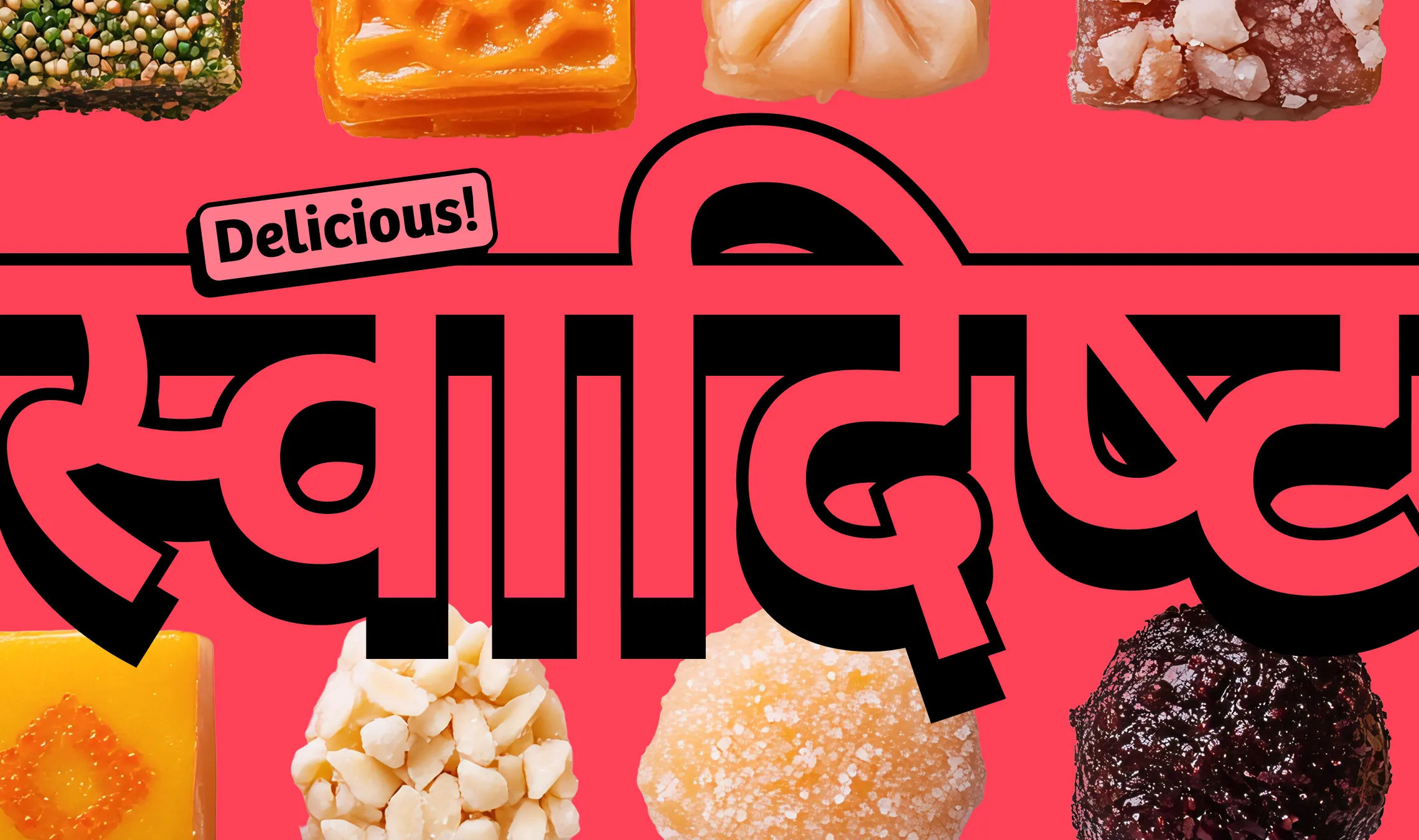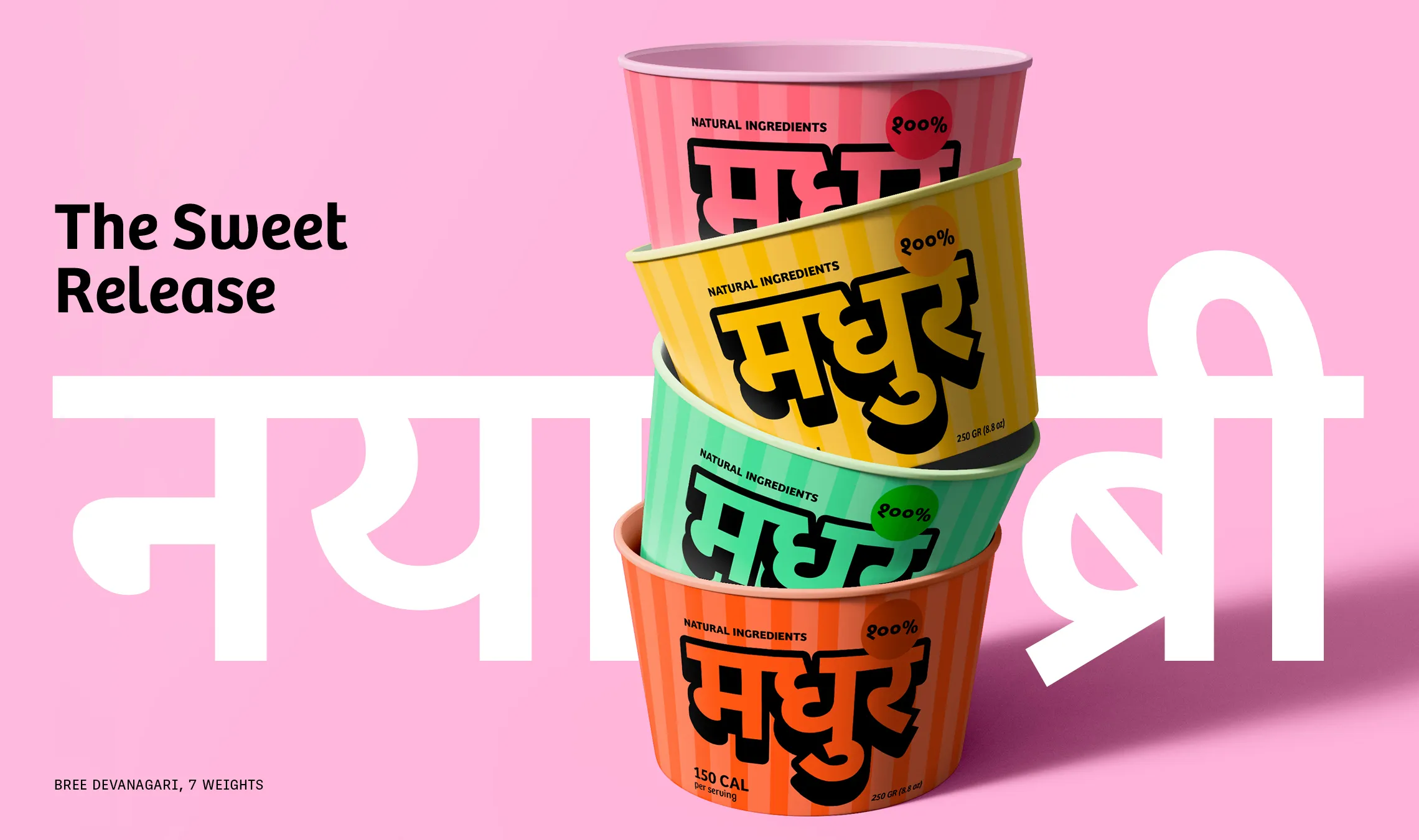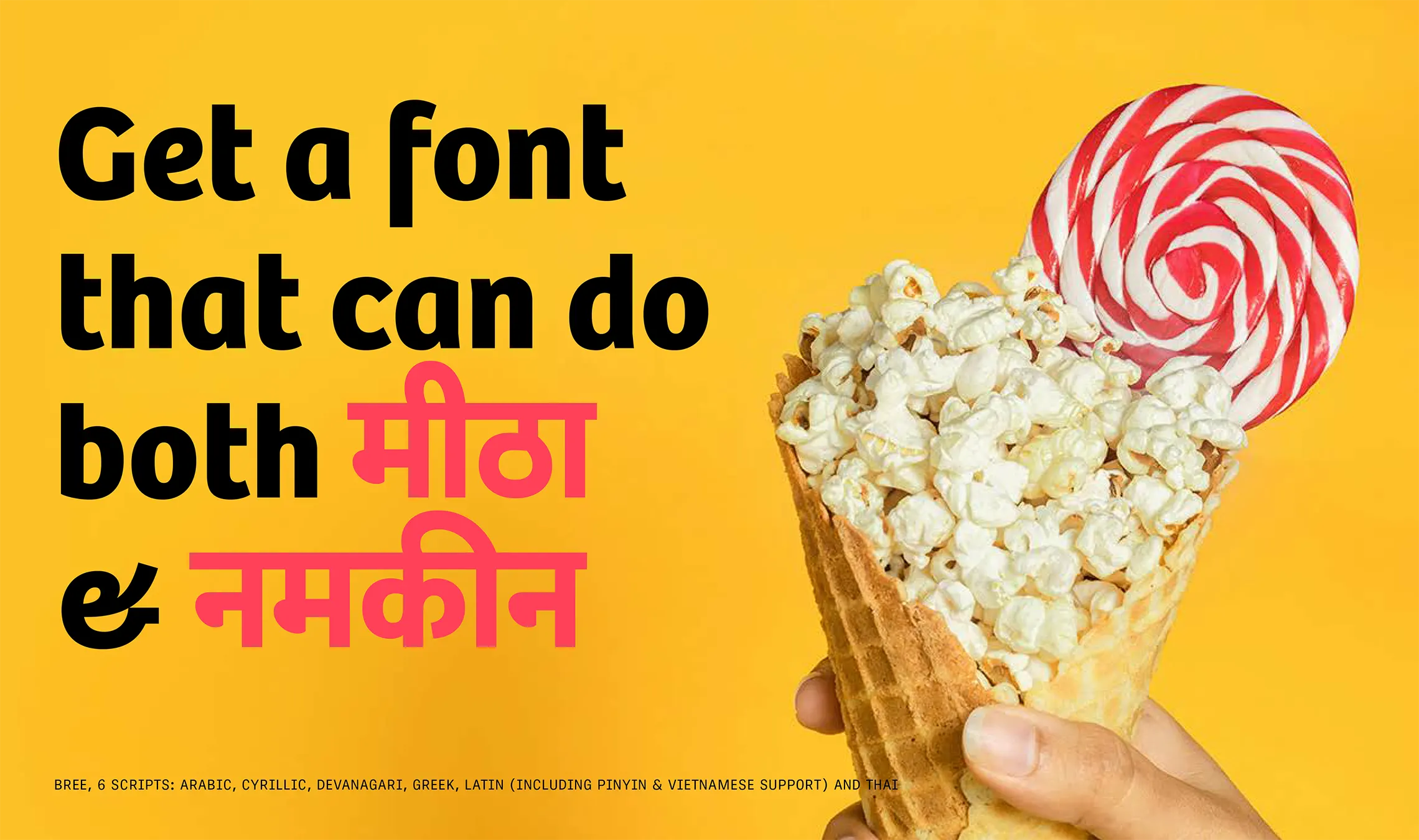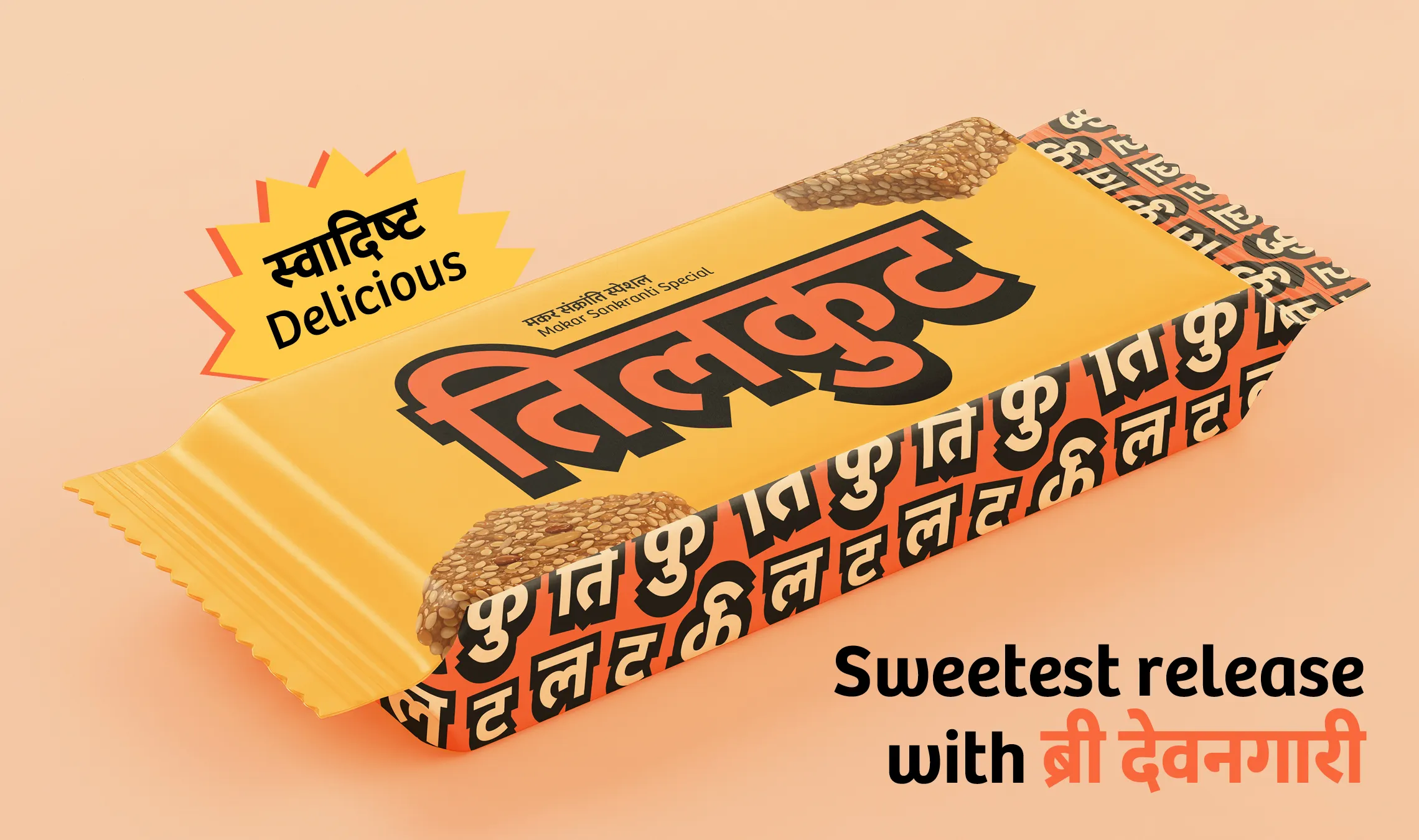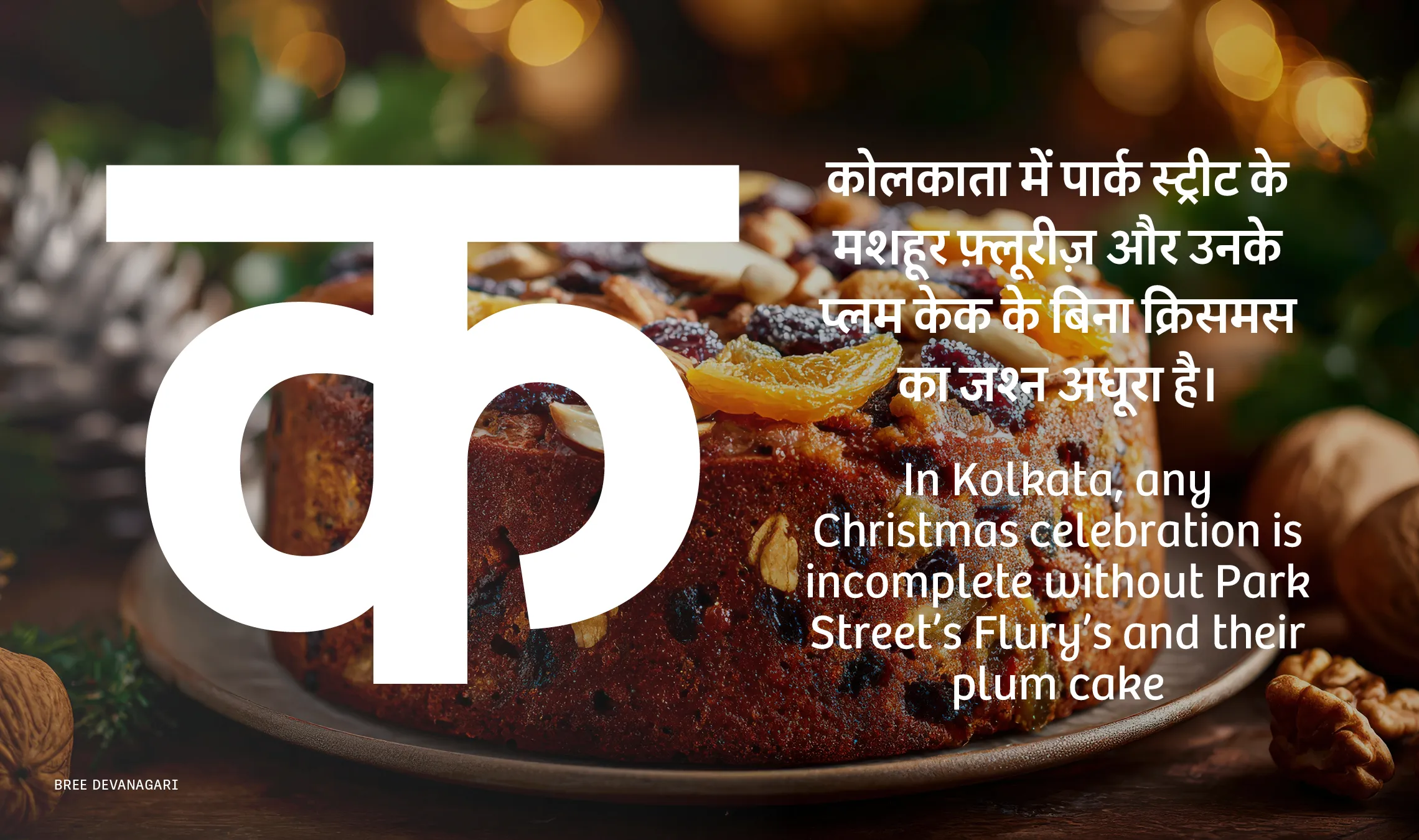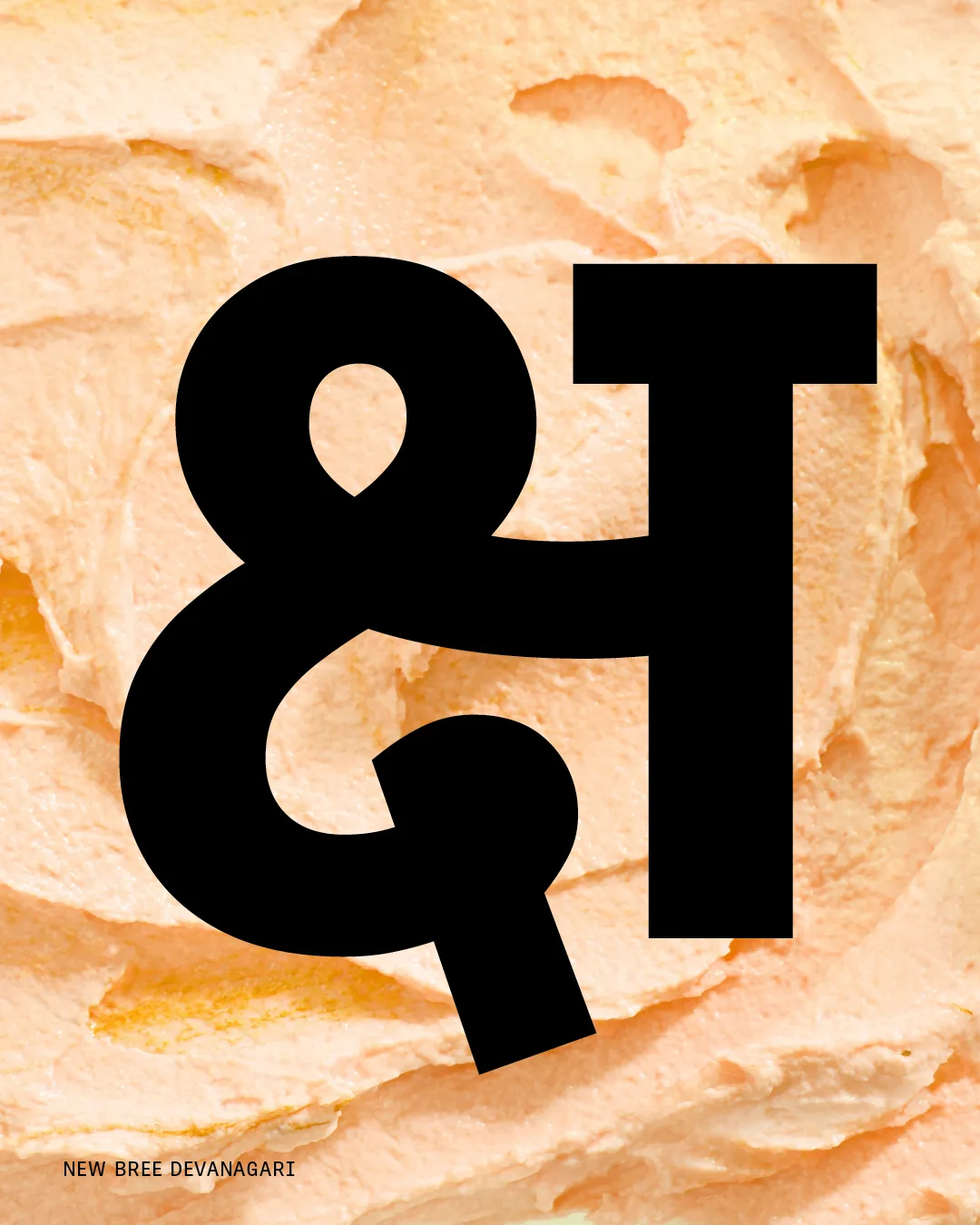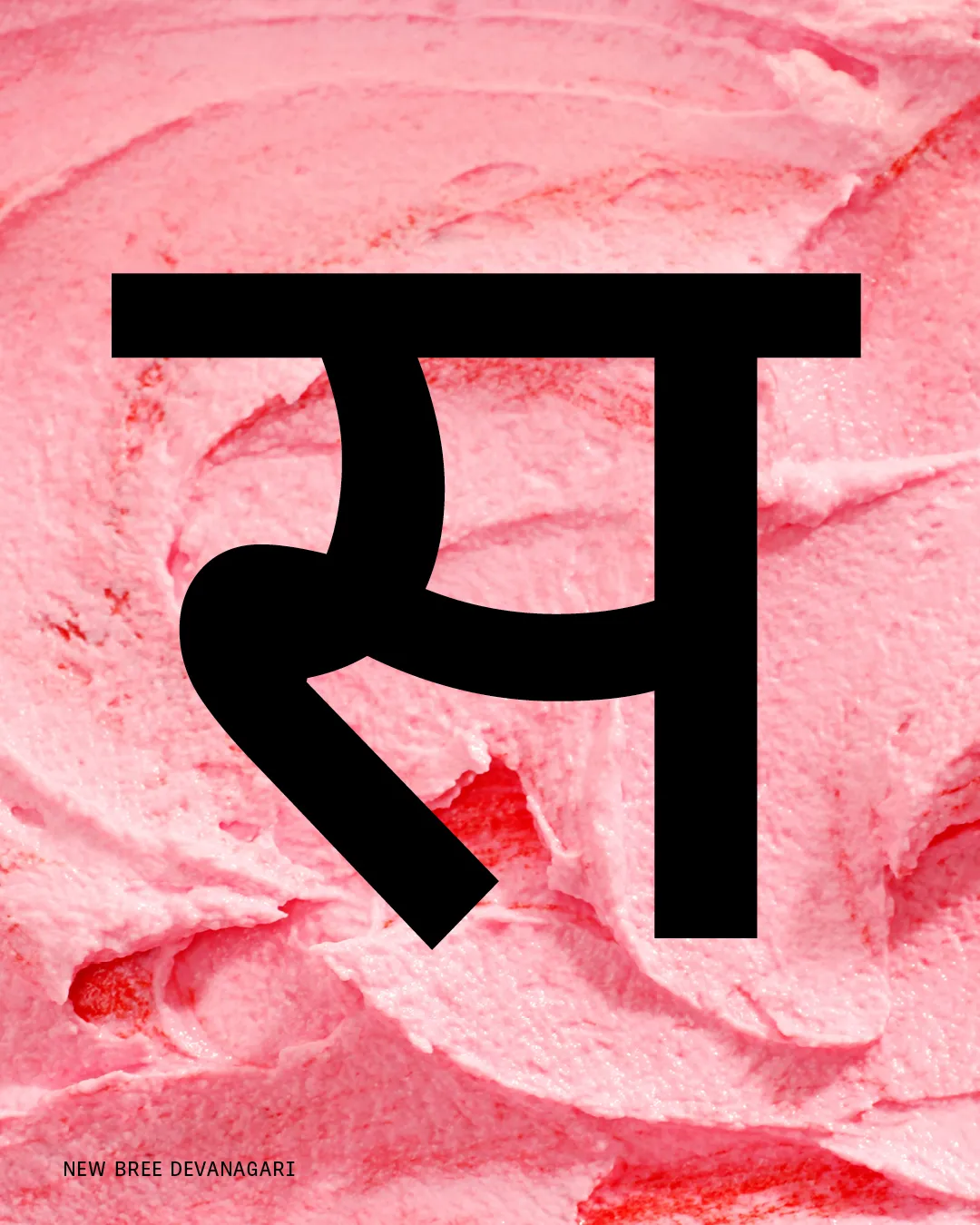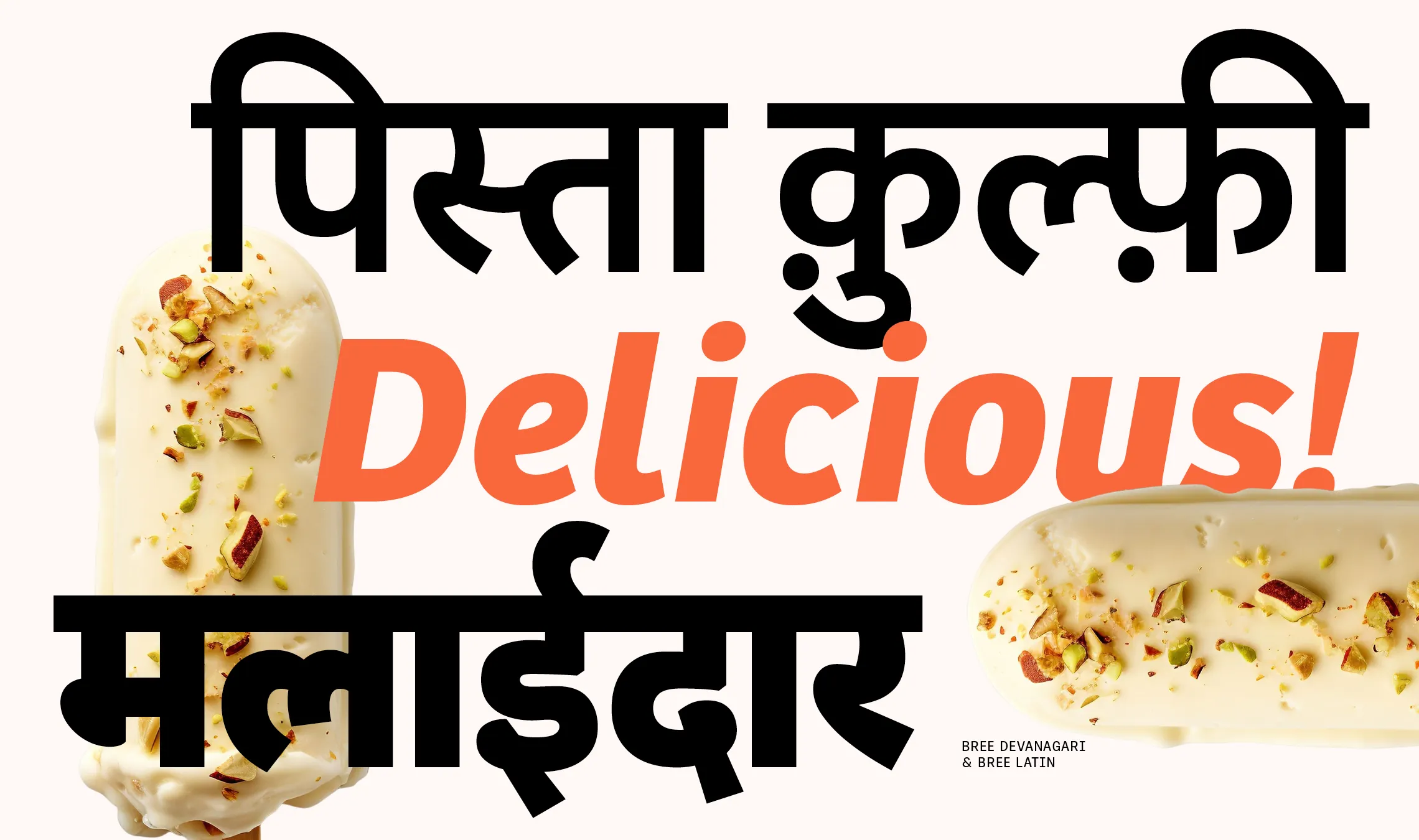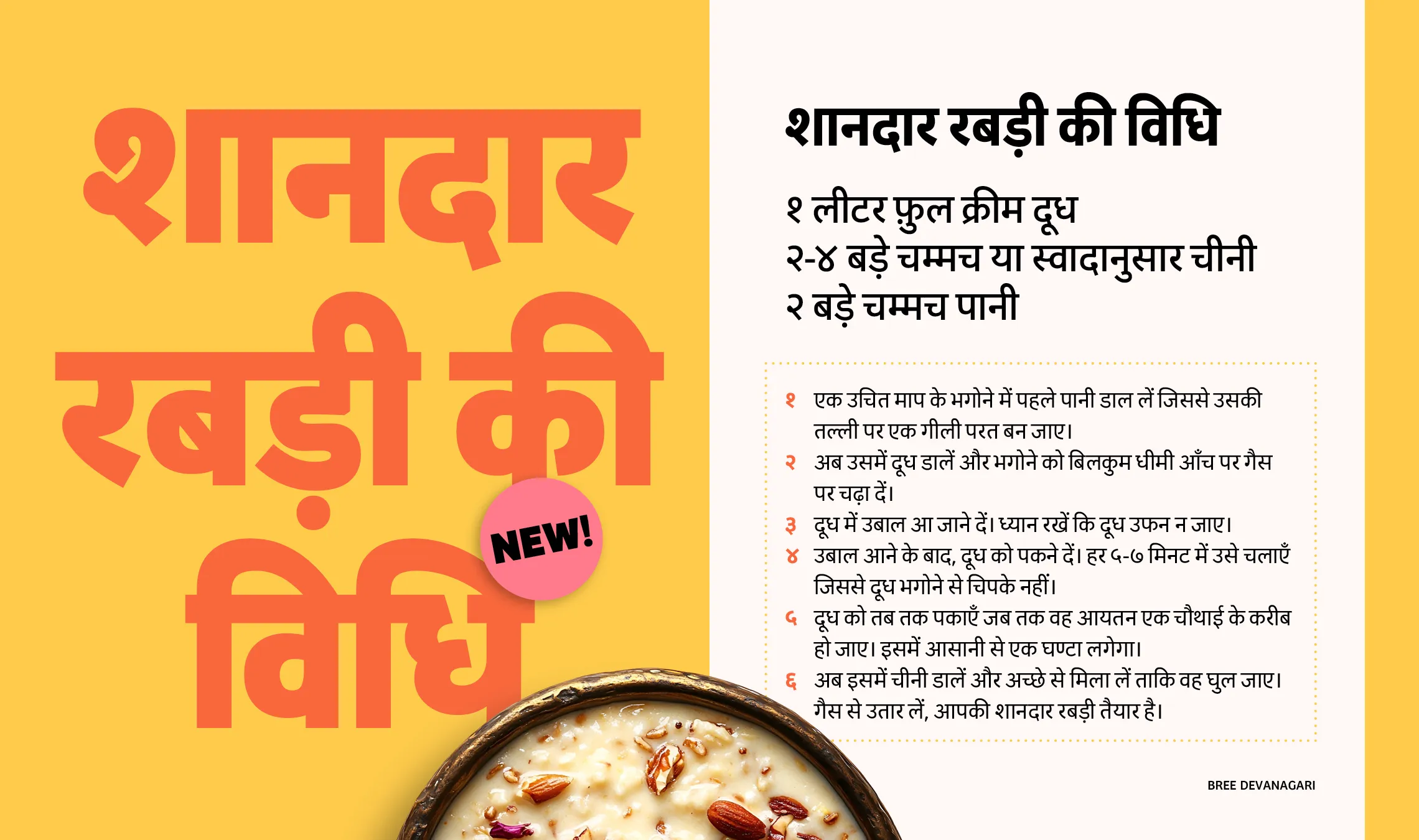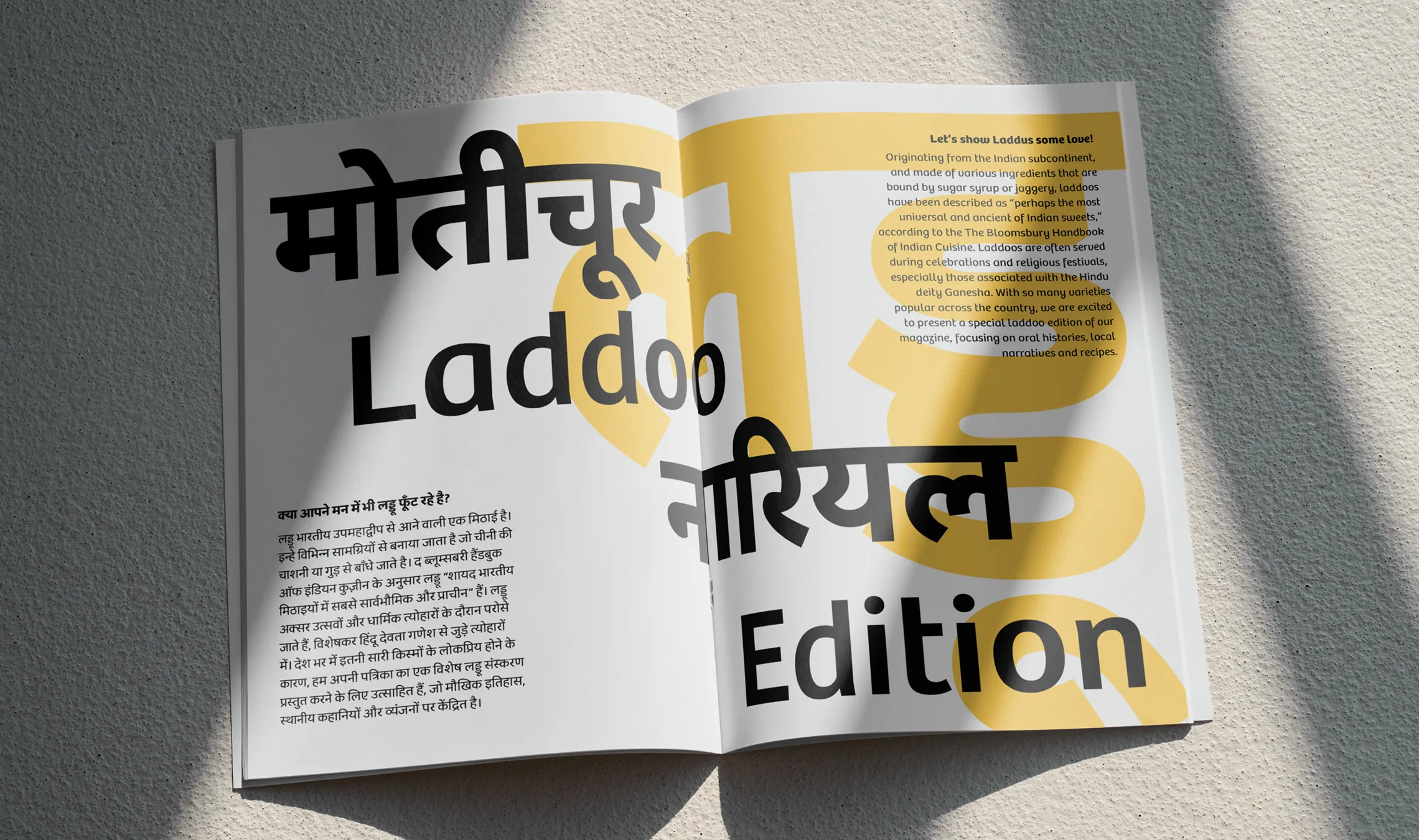
रसीले fonts, रसीली life!
Bree is one of our most popular – and friendly – type families. Now Bree is available in Devanagari, with an exuberant tone perfect for branding and headlines.
Originally inspired by TypeTogether’s logotype, Bree Latin launched in 2008 and was an immediate triumph. Now a team led by Pooja Saxena has interpreted the design in Devanagari. This latest extension matches the meter of the established scripts by echoing handwritten gestures and gentle strokes, and building upon a foundation of narrow but even horizontal proportions.
Bree Devanagari will prove incredibly useful in multiple situations. Its warmth and memorability make it a perfect choice for logos, packaging, and signage for brands that speak from the heart and build communities. At the same time, Bree Devanagari’s compact proportions across weights are ideal for headlines in mobile apps, newspapers, and online magazines, where space is at a premium but personality is no less important.
Bree Devanagari also features many closed shapes, such as the ikar and iikar matras, which are fashioned as a nod to the recognisable penmanship evoked in the Latin lowercase g, k, y and z: two scripts written by the same hand. Like any professional Devanagari typeface worth its salt, the design includes regional letter variants that cater to Hindi and Marathi readers. Five base consonants, ख ग र स ल, and over one hundred and fifty of their derivative forms, from half letters to conjuncts, also come in two alternates that can transform Bree Devanagari from spirited to restrained in both languages.
Lead design & concept
Pooja Saxena (Devanagari)
Veronika Burian (Latin)
José Scaglione (Latin)
Type design
Gunjan Panchal (Devanagari)
Shaily Patel (Devanagari)
Taresh Vohra (Devanagari)
Engineering
Joancarles Casasín
Pooja Saxena (Devanagari)
Taresh Vohra (Devanagari)
Consultancy Vietnamese
Donny Trương
Graphic Design
Elena Veguillas
Felicia Priscillya
Motion Design
Cecilia Brarda
Copywriting
Doug Arellanes
Pooja Saxena